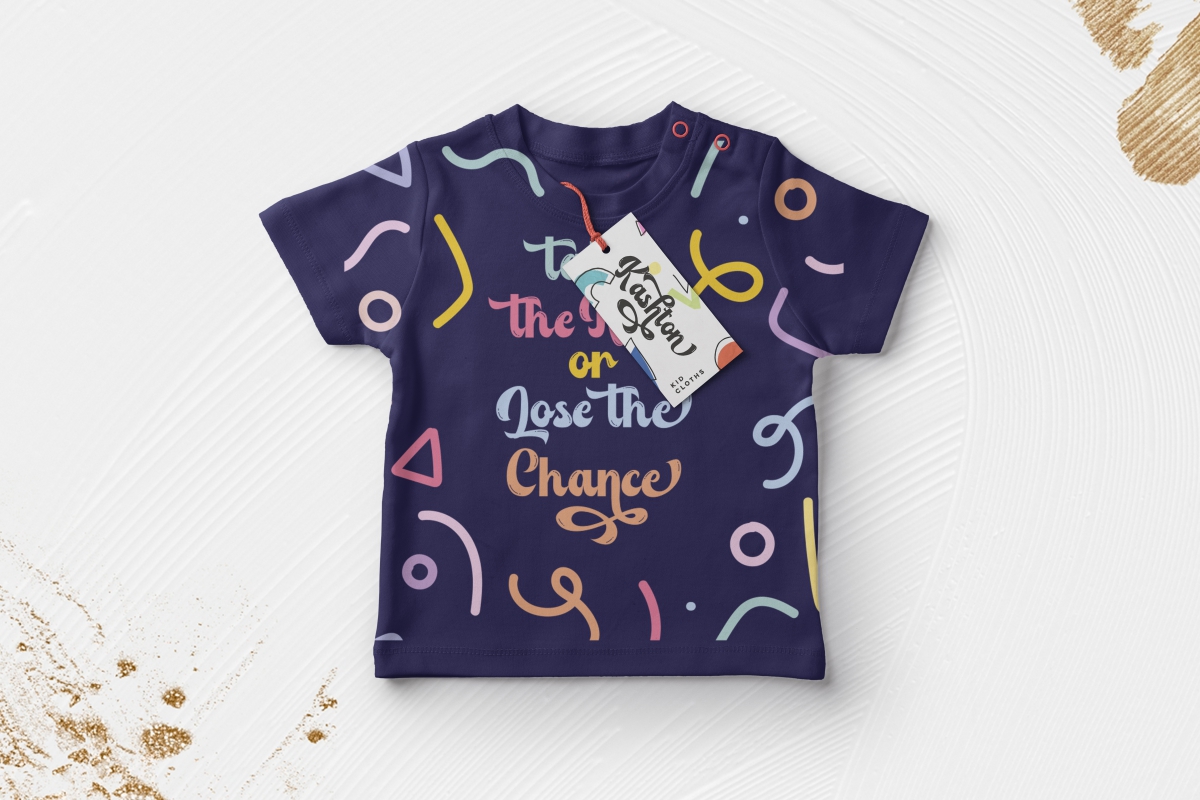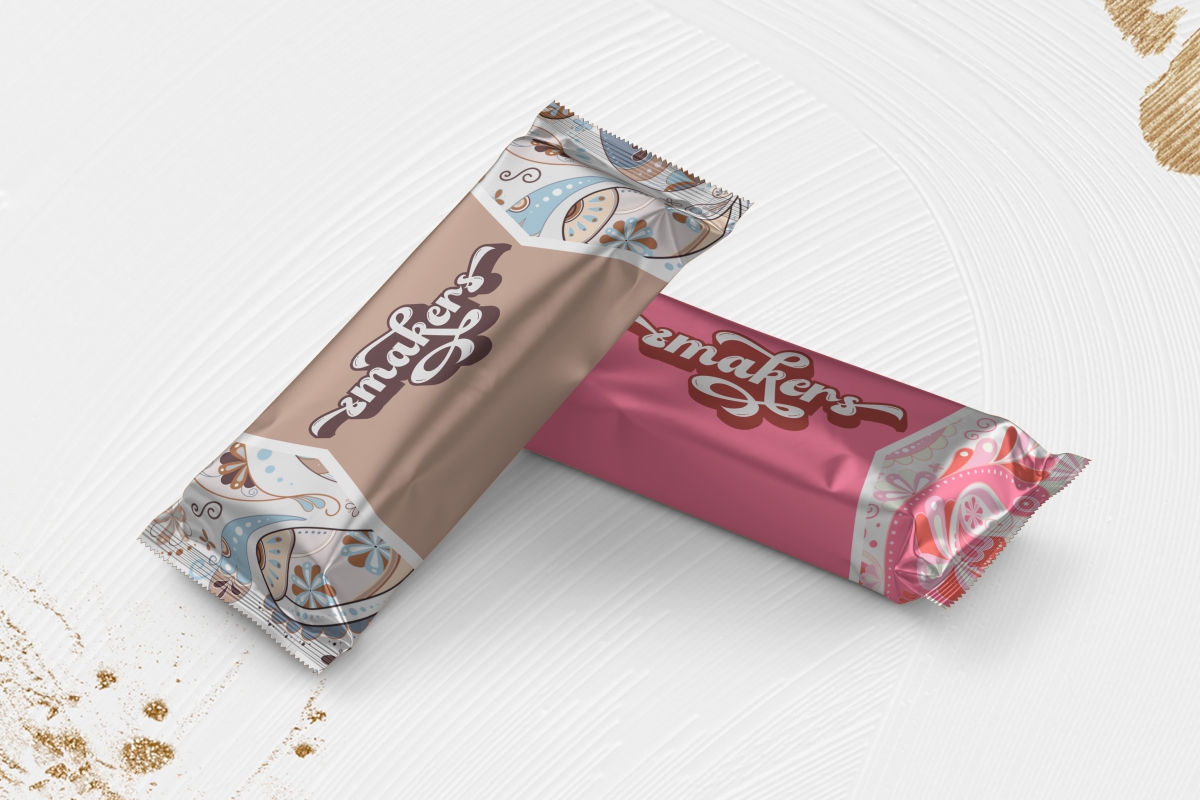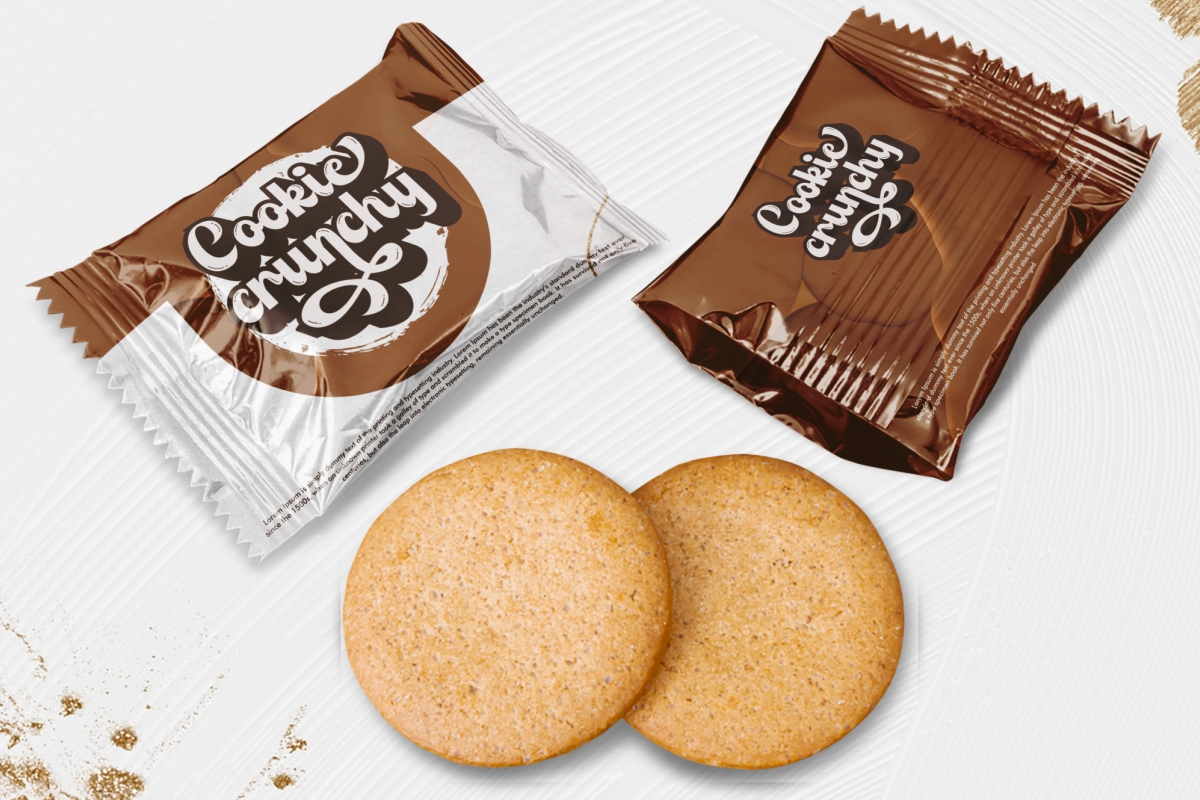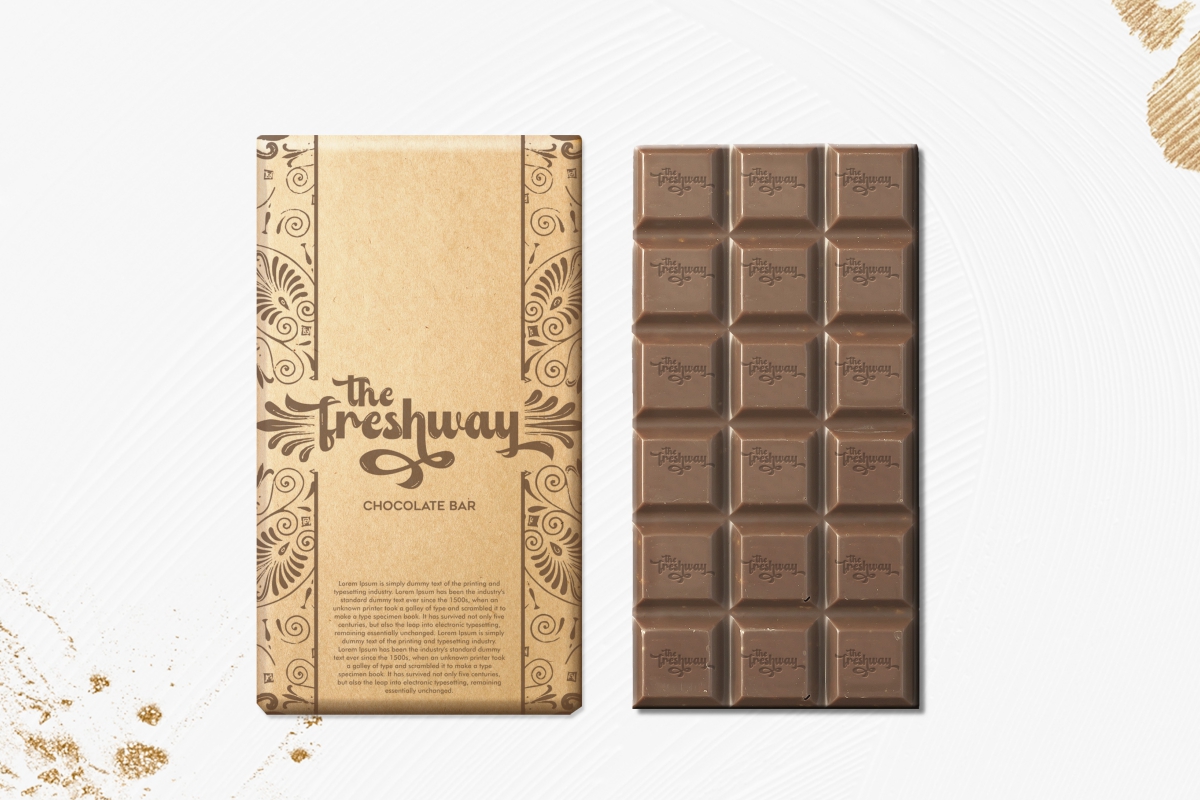
Candy Ballon Font
Candy Ballon Script Font
This font is a shiny bold script font with cute, stylish look and special effect on the top of it. Specially made by NoahType, this font will add a personal look twist to any design project. This font is crafted carefully in every its single scratch, created to look as close to a natural handwritten script so that it can create the perfect combination on each glyph. When we make this font, we really want to create a touch that is so free-flowing that it gives a natural impression on its use later. This brush font is for anyone who needs a sporty script style for their designs.
This brush font will be awesome for cookies shop, fashion, kids, products packaging, school etc
Candy Ballon Font includes full set of Uppercase and Lowercase Basic Characters, Numerals and Punctuation. Perfectly make natural writing look that add more beautiful and aesthetic fonts to perfect your extraordinary project. Candy Ballon will be awesome for logotype, lettering, products packaging, signage, stationery, title etc